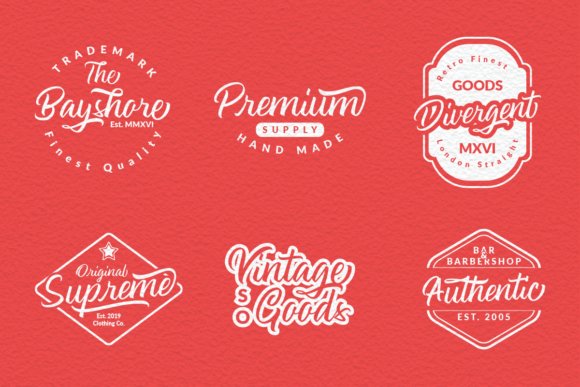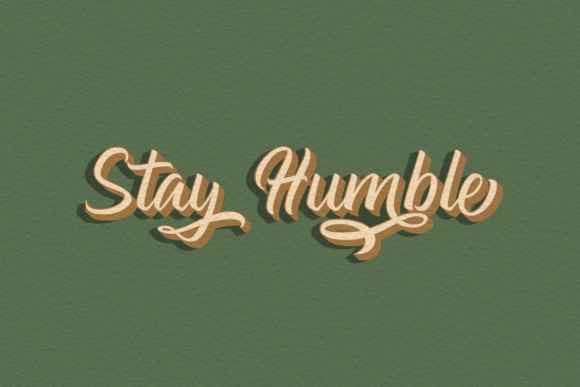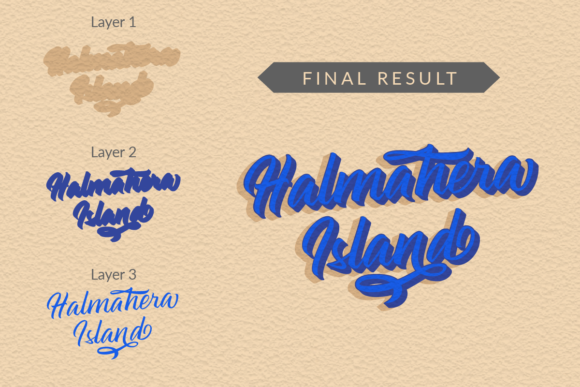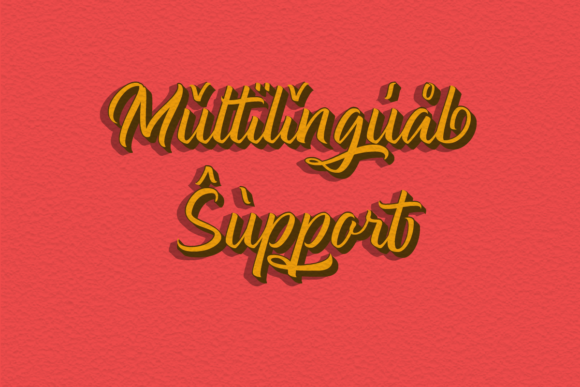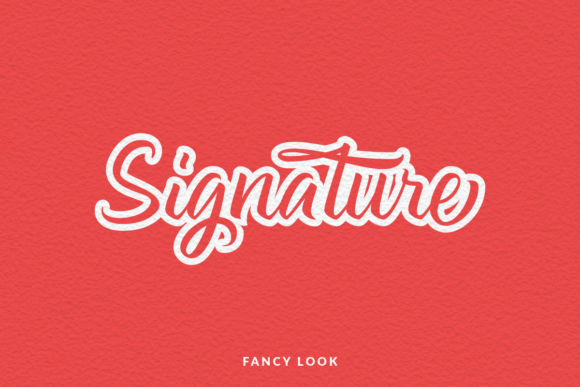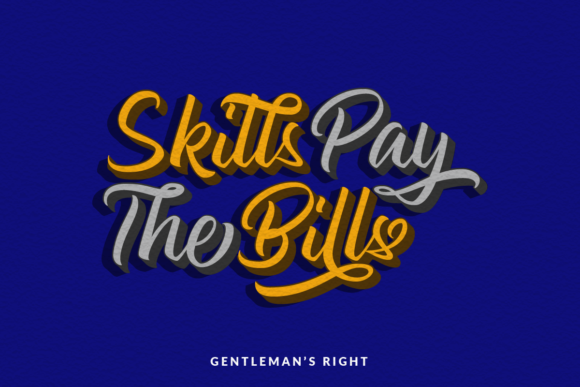
Introduction to Halmahera Island Font
Halmahera Island is a beautiful and unique handwritten font with a distinct vintage feel.
Key Features of Halmahera Island Font
Why Choose Halmahera Island Font?
Halmahera Island Font offers exceptional quality and versatility, making it a valuable addition to your design toolkit. Whether you’re creating for personal projects or commercial use, Halmahera Island Font delivers professional results.